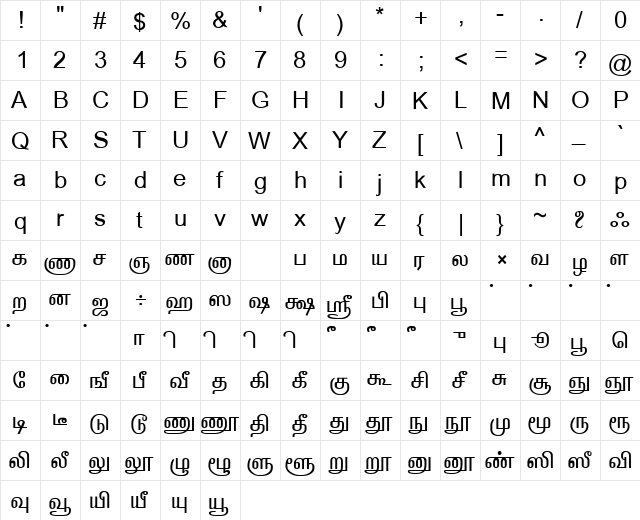
AkrutiOfficePanchali Normal
AkrutiOfficePanchali takes a measured approach to typography — its balanced proportions and neutral character make it a reliable workhorse for both digital and print work.